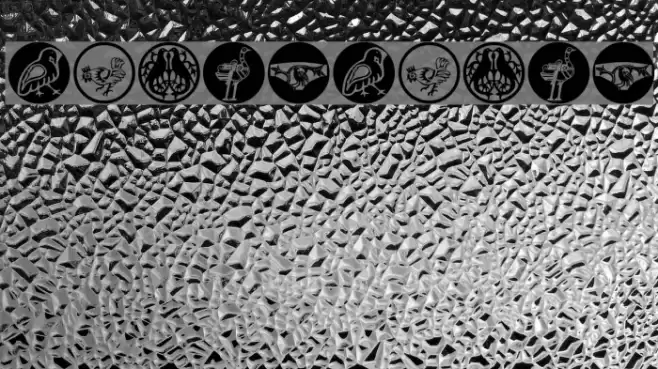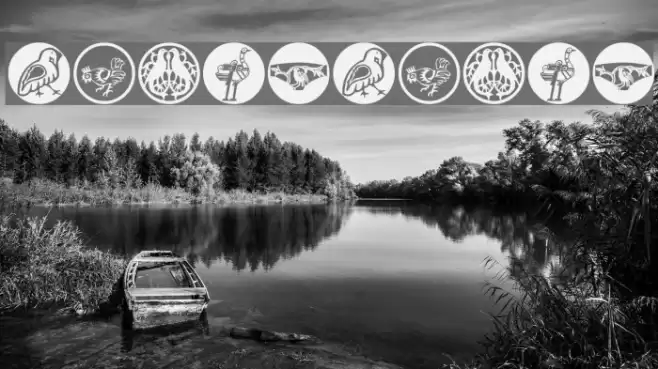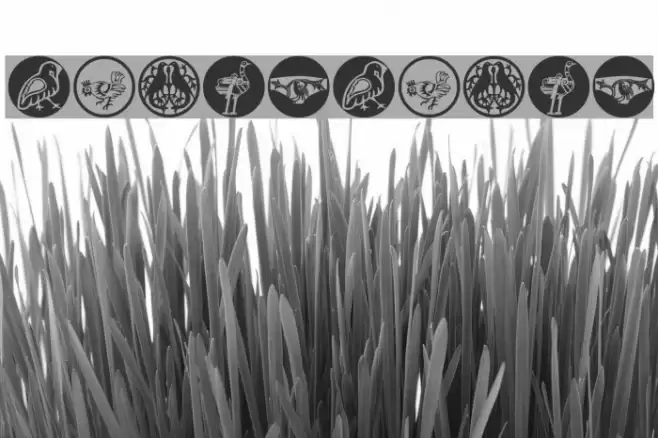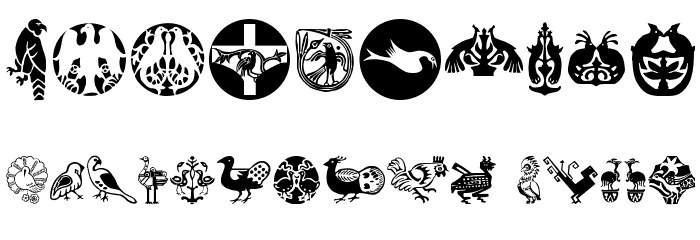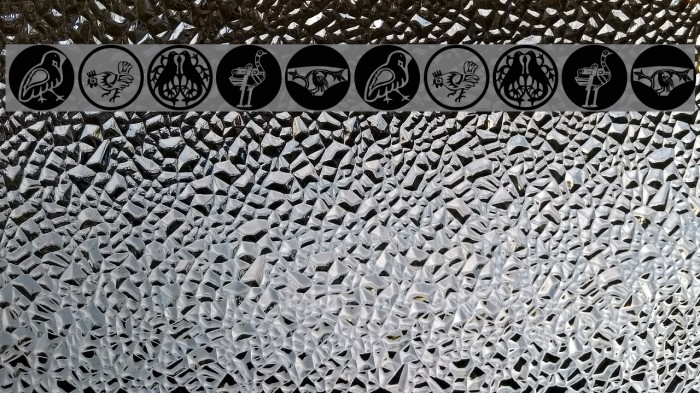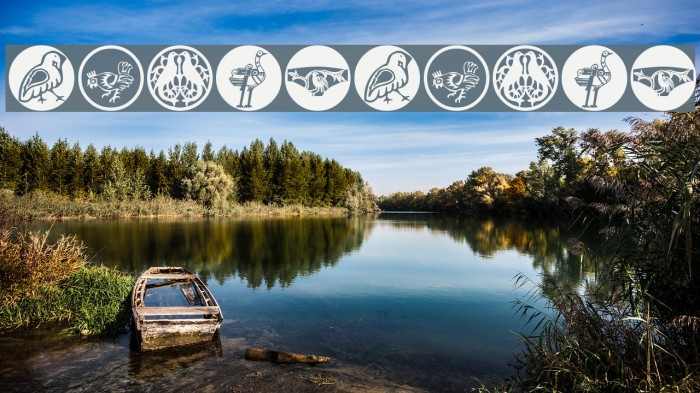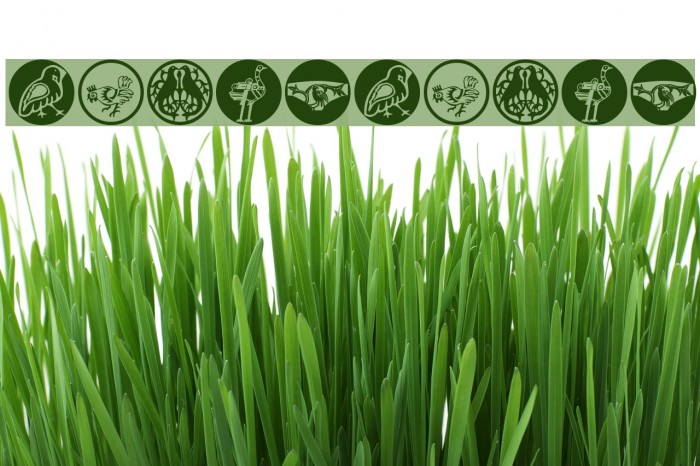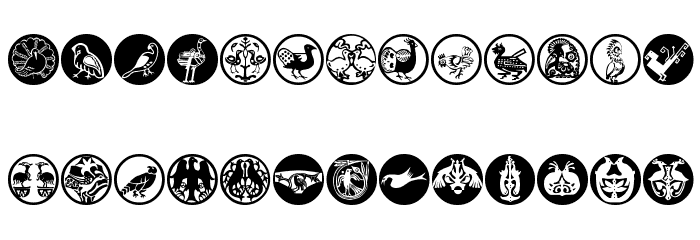
BirdsBirds Font
BirdsBirds Description
A decorative display typeface featuring stylized bird and animal motifs within circular and shield-like shapes, rendered in high-contrast black and white. The glyphs are highly illustrative, with intricate linework and ornamental details, evoking a folk-art or traditional craft aesthetic.
Ornamental display font with bird-themed pictorial glyphs from Uncategorized fonts.
- Proposed Projects: Branding for artisanal products, event posters, book covers, packaging, cultural or folk festival materials.
- Overall Style: Decorative, Folk-Art, Ornamental
- Use Case: Logos, Headlines, Posters, Thematic Illustrations